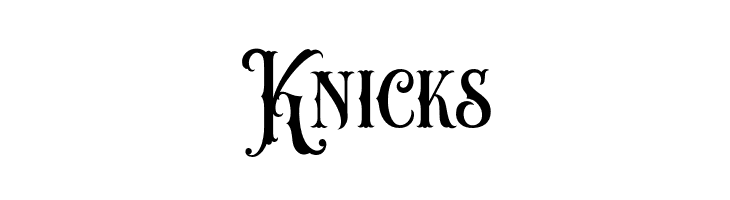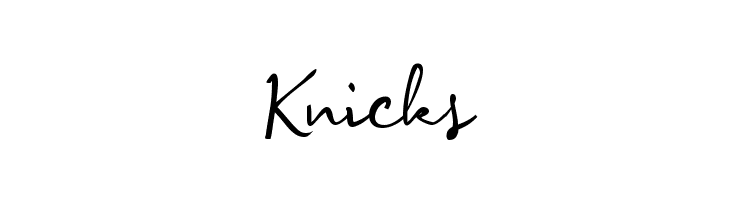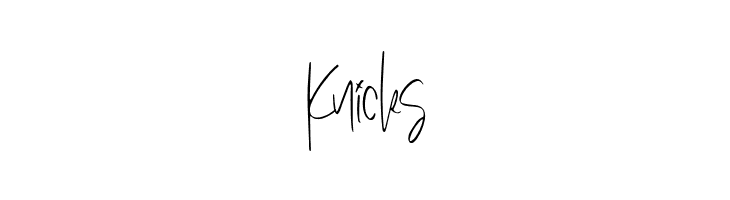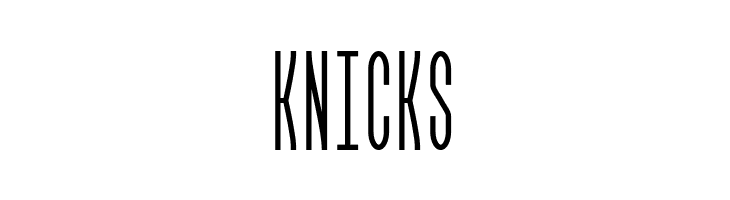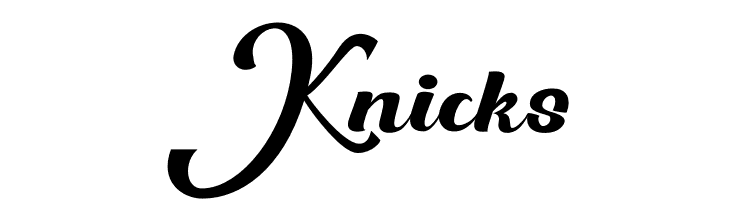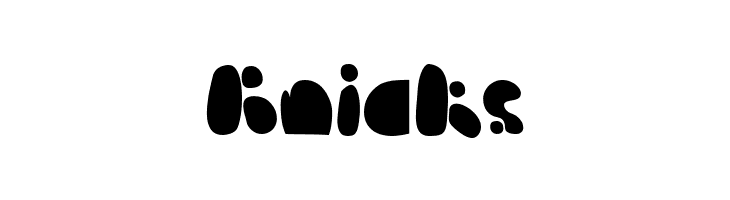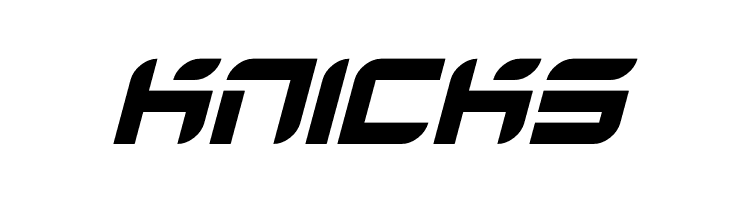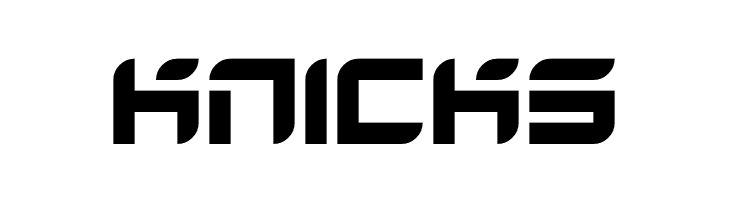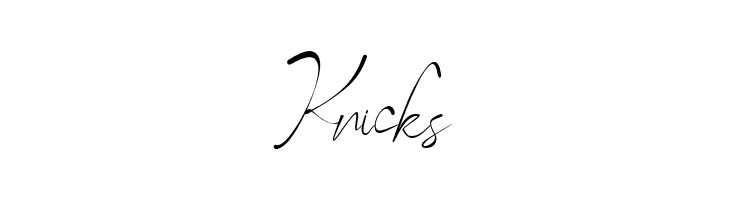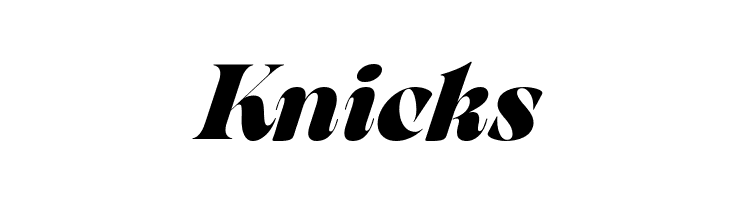
( Fonts by Mans Greback - Personal-use only. For commercial use please contact owner. ) A graceful script font with flowing, connected letters and elegant flourishes. Download 83 Downloads@WebFont
( Fonts by Andrea Cerboneschi - Personal-use only. For commercial use please contact owner. ) A bold, modern sans-serif font with geometric influences and rounded edges. Download 252 Downloads@WebFont
( Fonts by Vladimir Nikolic - www.creativefabrica.com/designer/vladimirnikolic/ - Personal-use only. For commercial use please contact owner. ) A bold, modern font with geometric influences and consistent stroke width. Download 518 Downloads@WebFont
( Fonts by Manfred Klein. Free for private and charity use. Free for commercial with donation to organizations ) A playful pictogram font with clocks, watches, and time-themed illustrations. Download 177 Downloads@WebFont
( Fonts by Haksen Studio - Sarwo Edhi Prayitno - Personal-use only. For commercial use please contact owner. ) An elegant, flowing script font with ornate uppercase and smooth lowercase letters. Download 63 Downloads@WebFont
( Fonts by Muhammad Miad - By This font full version https://crmrkt.com/P45Ver - Personal-use only. For commercial use please contact owner. ) An ornate, decorative font with intricate swirls and high contrast, perfect for artistic projects. Download 1163 Downloads@WebFont
( Fonts by ilhamtaro - Personal-use only. For commercial use please contact owner. ) An ornate and decorative font with intricate swirls and embellishments. Download 124 Downloads@WebFont
( Fonts by fontalist - Andri Firmansyah - Personal-use only. For commercial use please contact owner. ) A bold, geometric font with strong lines and modern appeal. Download 260 Downloads@WebFont
( Fonts by fontalist - Andri Firmansyah - Personal-use only. For commercial use please contact owner. ) A bold, geometric font with a modern and impactful style. Download 47 Downloads@WebFont
( Fonts by wep - Wahyu Eka Prasetya - Personal-use only. For commercial use please contact owner. ) A dynamic, cursive handwritten font with an elegant and fluid style. Download 99 Downloads@WebFont
( Fonts by wepfont - Wahyu Eka Prasetya - Personal-use only. For commercial use please contact owner. ) A casual, elegant handwritten font with fluid strokes and dynamic slant. Download 116 Downloads@WebFont
( Fonts by Wras Studio - Personal-use only. For commercial use please contact owner. ) A modern, elegant script font with flowing, connected letters. Download 38 Downloads@WebFont
( Fonts by Intellecta Design - Paulo W - Personal-use only. For commercial use please contact owner. ) A dynamic, expressive script font with a handwritten style. Download 32 Downloads@WebFont
( Fonts by www.stereo-type.net ) A modern, geometric sans-serif font with clean lines and uniform stroke width. Download 17788 Downloads@WebFont
( Fonts by Asd Studio - Ghazi Humam Fauzan - Personal-use only. For commercial use please contact owner. ) A dynamic handwritten font with fluid, cursive strokes and a playful appearance. Download 38 Downloads@WebFont
( Fonts by Zhalgas Kassymkulov - Personal-use only. For commercial use please contact owner. ) A modern, arrow-themed font with bold, geometric characters. Download 127 Downloads@WebFont
( Fonts by GGBotNet - Personal-use only. For commercial use please contact owner. ) A modern, elongated, and narrow font with consistent stroke width. Download 66 Downloads@WebFont
( Fonts by GGBot - www.ggbot.net - Personal-use only. For commercial use please contact owner. ) A modern, italicized font with tall, narrow characters and high contrast. Download 54 Downloads@WebFont
( Fonts by CannotIntoSpaceFonts - KineticPlasma Fonts - Personal-use only. For commercial use please contact owner. ) A fragmented, abstract font with bold, angular shapes. Download 225 Downloads@WebFont
( Fonts by CannotIntoSpaceFonts - KineticPlasma Fonts - Personal-use only. For commercial use please contact owner. ) A dynamic, fragmented italic font with a modern, edgy style. Download 143 Downloads@WebFont
( Fonts by UkiyoMoji Fonts - Haley Wakamatsu - Personal-use only. For commercial use please contact owner. ) A bold, futuristic font with geometric shapes and sharp angles, ideal for tech-inspired designs. Download 28 Downloads@WebFont
( Fonts by UkiyoMoji Fonts - Haley Wakamatsu - Personal-use only. For commercial use please contact owner. ) A bold, futuristic font with sharp angles and a dynamic slant. Download 28 Downloads@WebFont
( Fonts by Manfred Klein. Free for private and charity use. Free for commercial with donation to organizations ) A decorative set of abstract, arrow-themed symbols with a modern, geometric style. Download 120 Downloads@WebFont
( Fonts by Sj ) An artistic, angular font with a hand-drawn, edgy style. Download 160 Downloads@WebFont
( Fonts by Ahmad Zulfikar Ali - Personal-use only. For commercial use please contact owner. ) A bold, Gothic-inspired font with sharp, angular lines and pointed serifs. Download 116 Downloads@WebFont
( Fonts by Green Adventure Studio - Ardi Parwito - Personal-use only. For commercial use please contact owner. ) A bold, geometric font with angular lines and a modern industrial style. Download 65 Downloads@WebFont
( Fonts by Zetafonts - Personal-use only. For commercial use please contact owner. ) A bold, high-contrast serif font with a dramatic and elegant style. Download 419 Downloads@WebFont
( Fonts by Zetafonts - Personal-use only. For commercial use please contact owner. ) A bold, italic serif font with dramatic serifs and a modern flair. Download 76 Downloads@WebFont